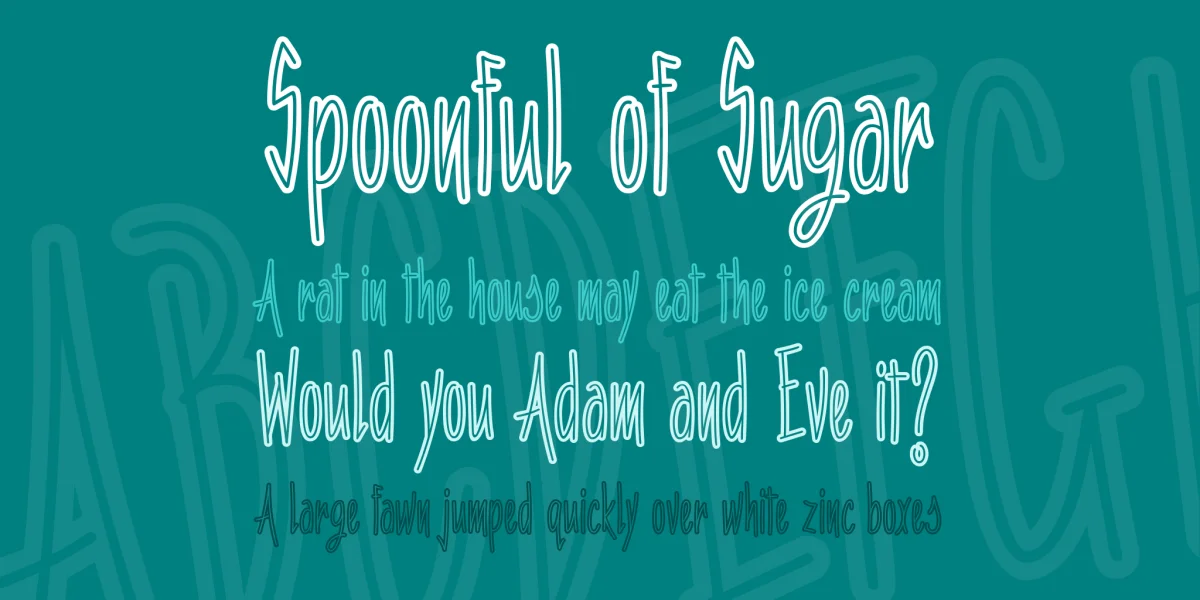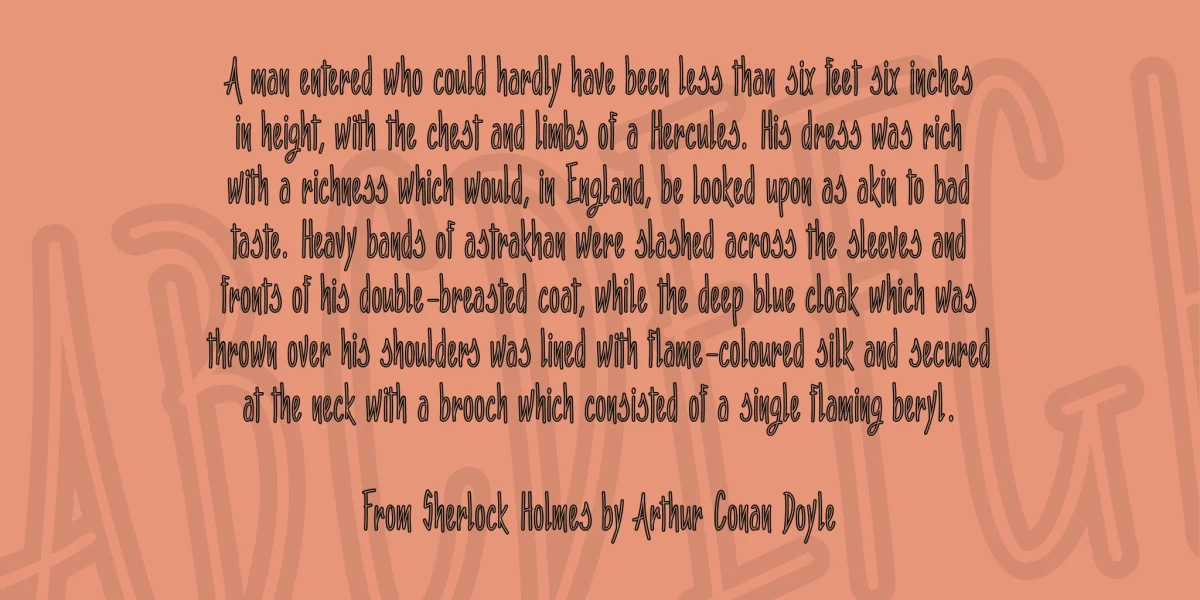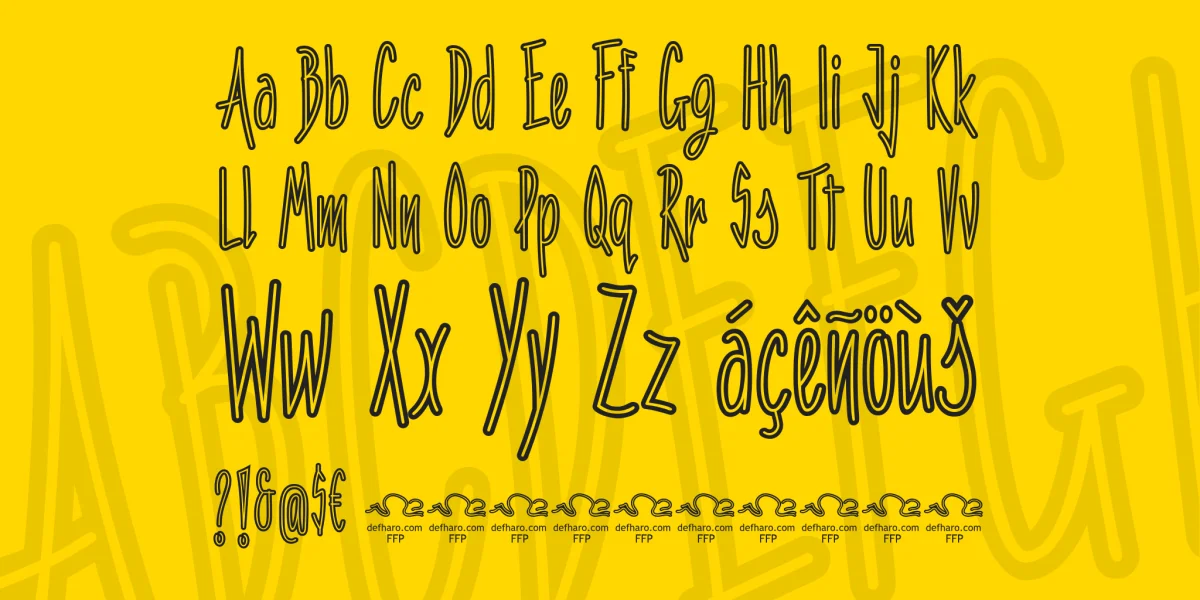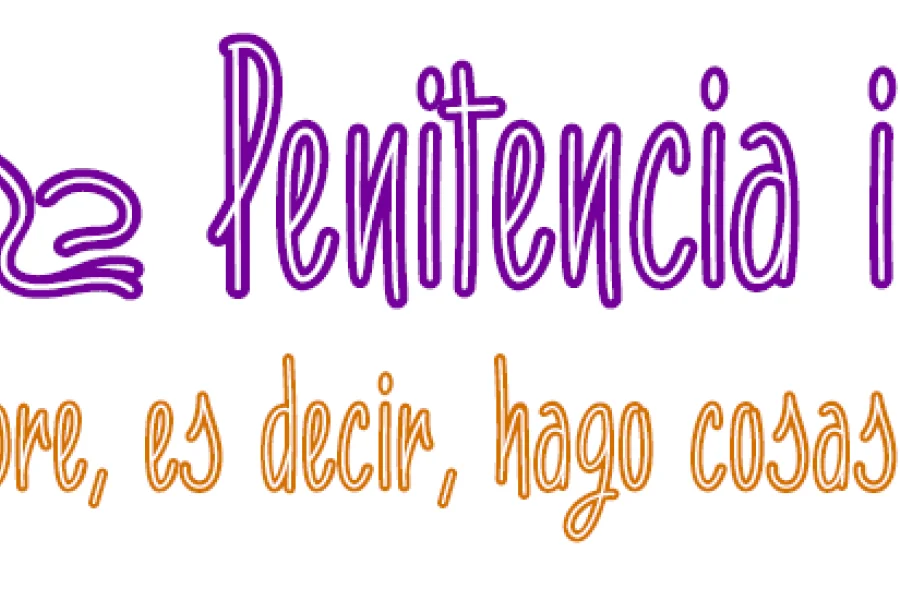
Penitencia is an inline handwritten font, designed to write elegant advertising titles on flyers or general publications.
Penitencia inline is condensed to save writing space and includes the Bitcoin symbol. (b# ligatures)